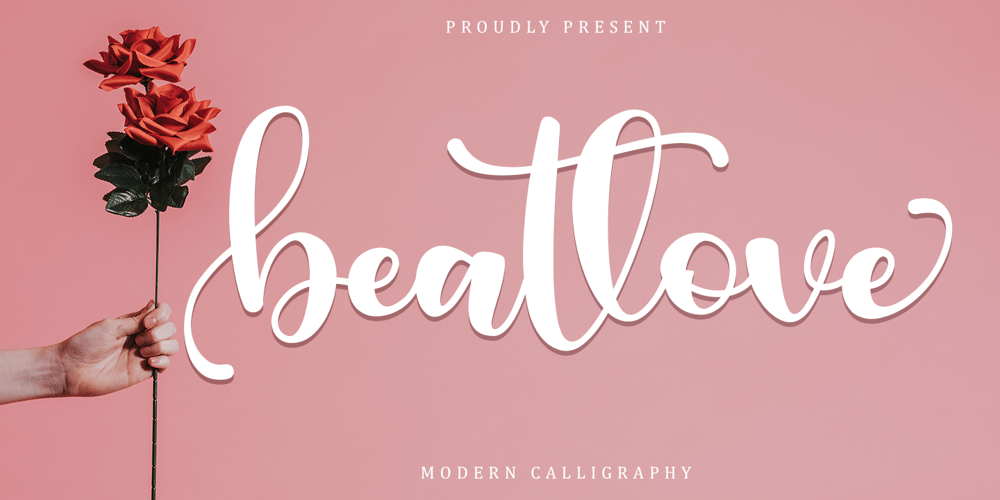
Beatlove Font Family was designed by Alif Ryan Zulfikar and published by Sakha Design. Beatlove contains 1 styles and family package options. Beatlove is a sweet and delicate handwritten font. Dainty and joyful, this font will be ideal for writing wedding invitations, cards or any other design that may need a romantic, personalized touch!